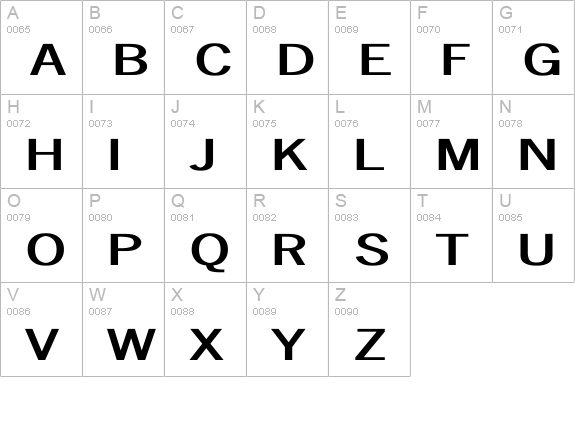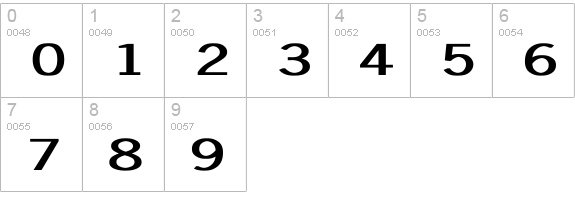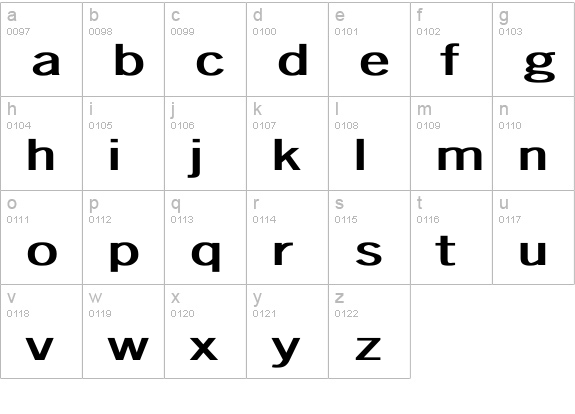
NewsGothic Ex Bold Font Details
NewsGothic Ex Bold is a strong, high-contrast variant in the NewsGothic typeface family \xE2\x80\x94 well suited to headlines, attention-grabbing titles, and strong calls-to-action.